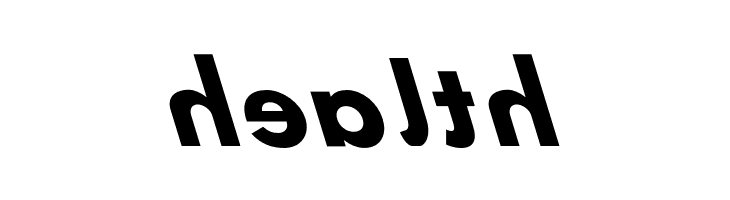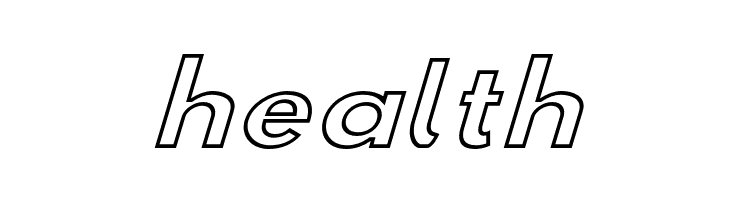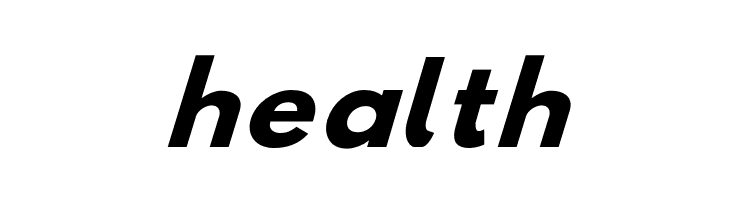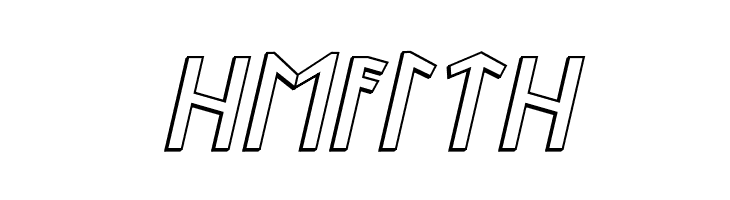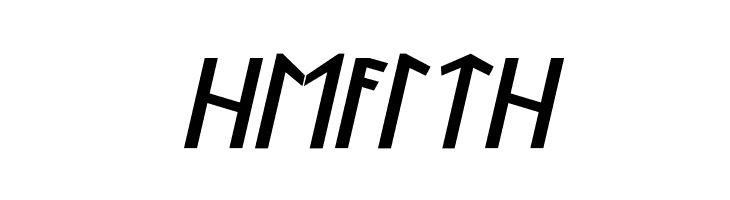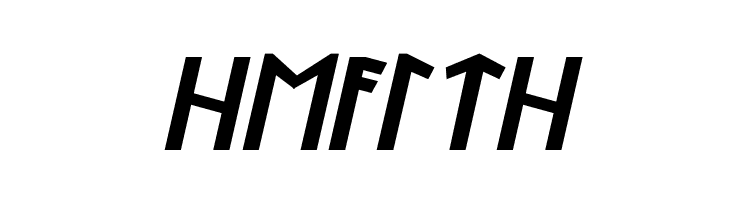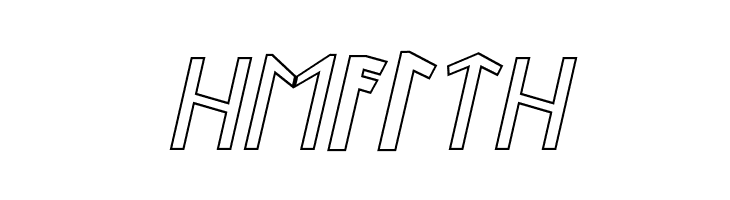
A bold, oblique font with strong, dynamic strokes and a cohesive design.
A bold, reversed oblique font with a modern and dynamic style.
A bold, oblique font with a strong, dynamic presence.
A modern, geometric oblique font with a ghost outline and super-extended width.
A bold, extended, and oblique font with a modern and dynamic style.
A bold, angular, outlined font with an oblique slant and a futuristic, edgy style.
A futuristic, angular font with sharp lines and a dynamic oblique style.
A bold, angular, and oblique font with a futuristic and edgy style.
An angular, oblique outline font with a futuristic and dynamic style.
A distorted, oblique sans-serif font with a dynamic, fragmented style.